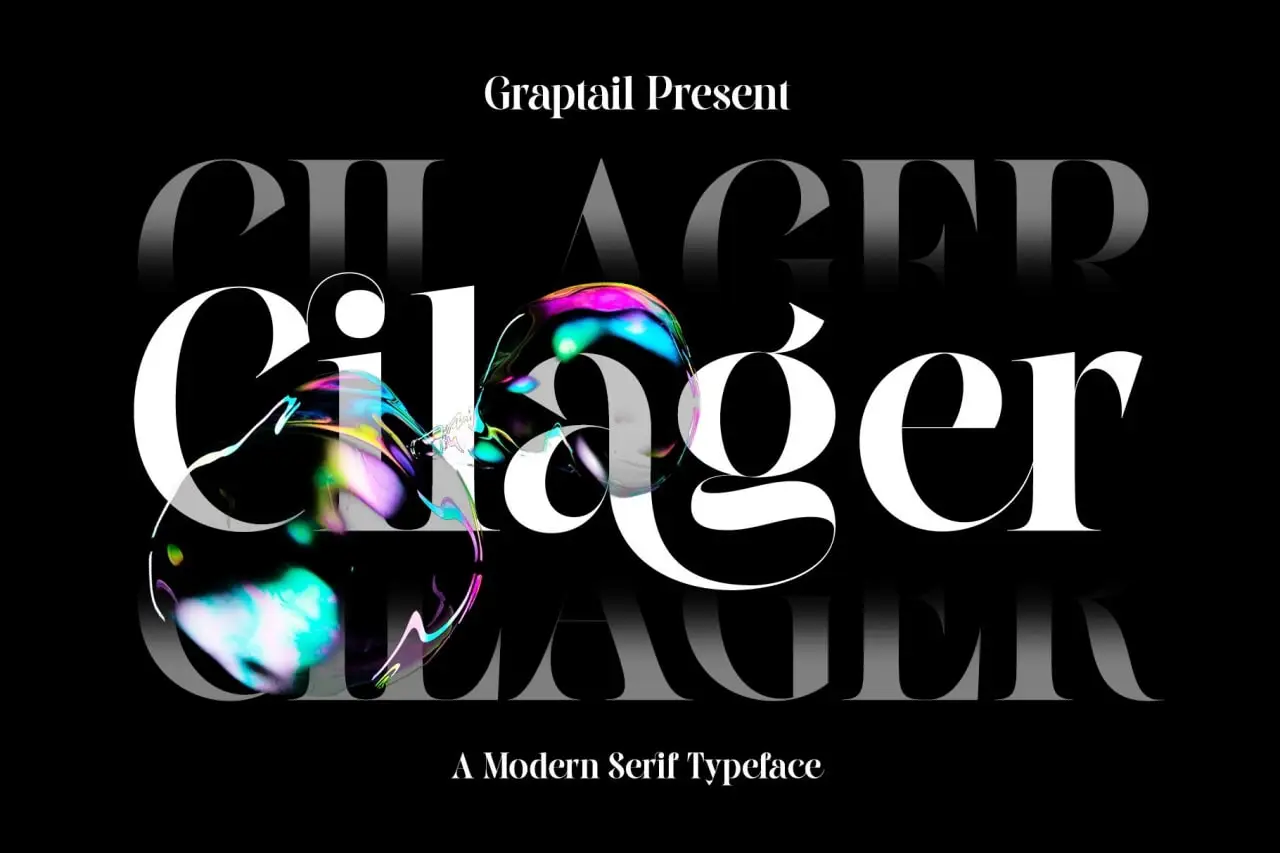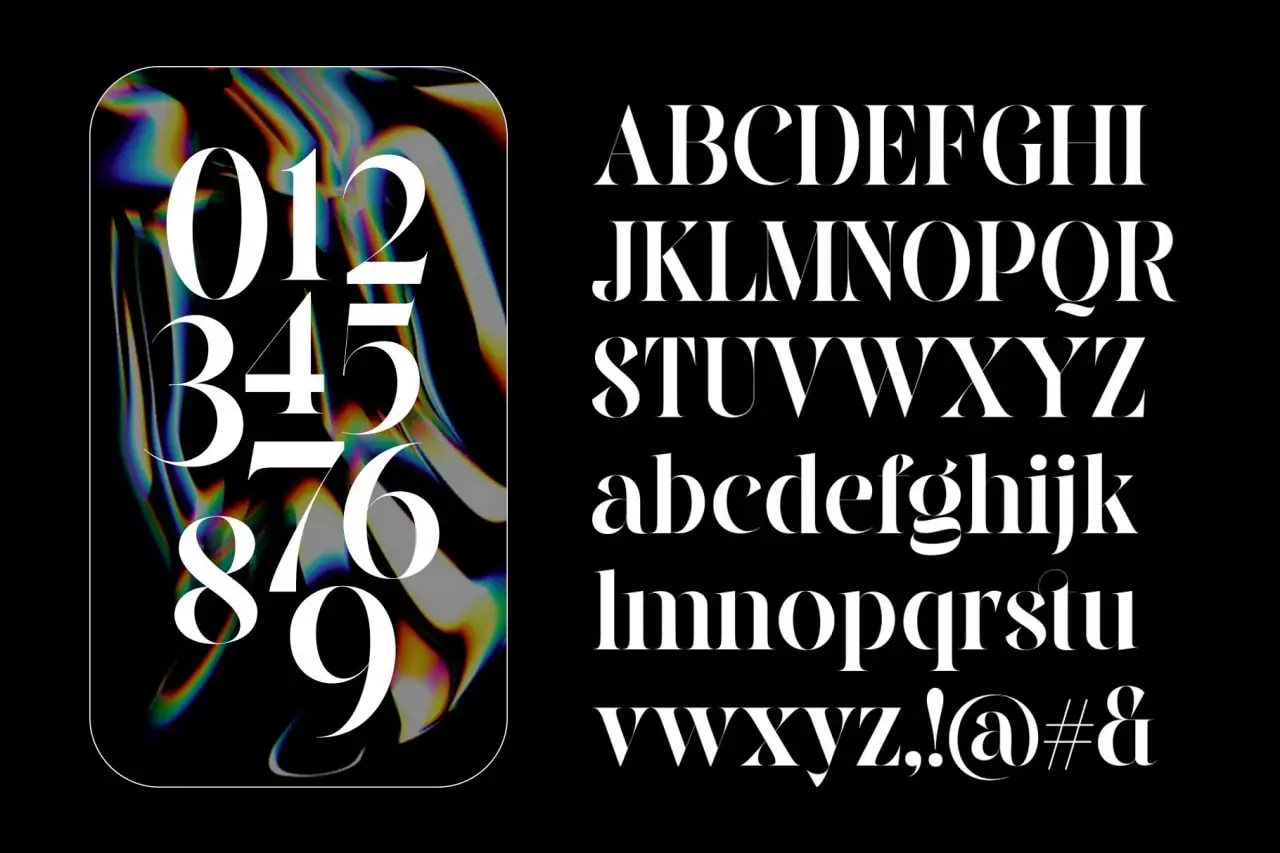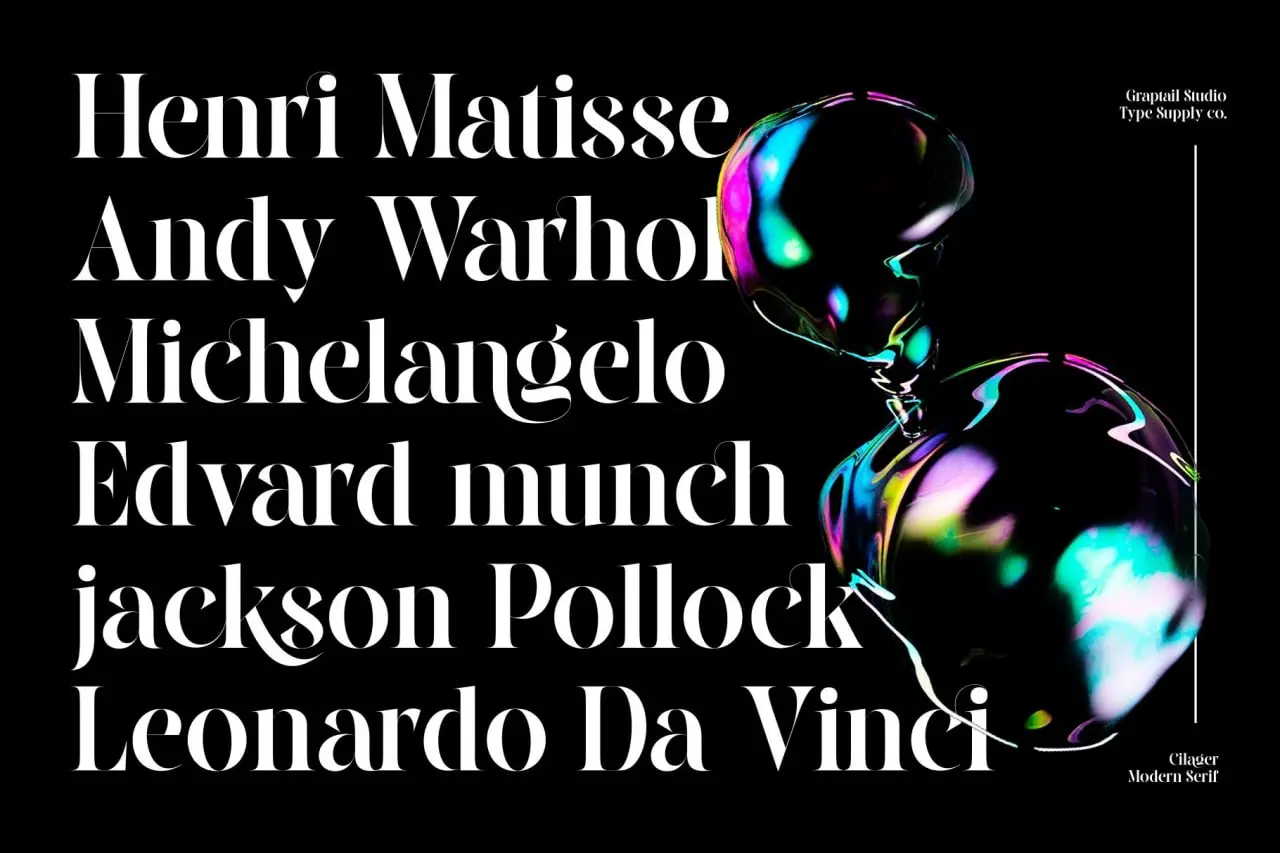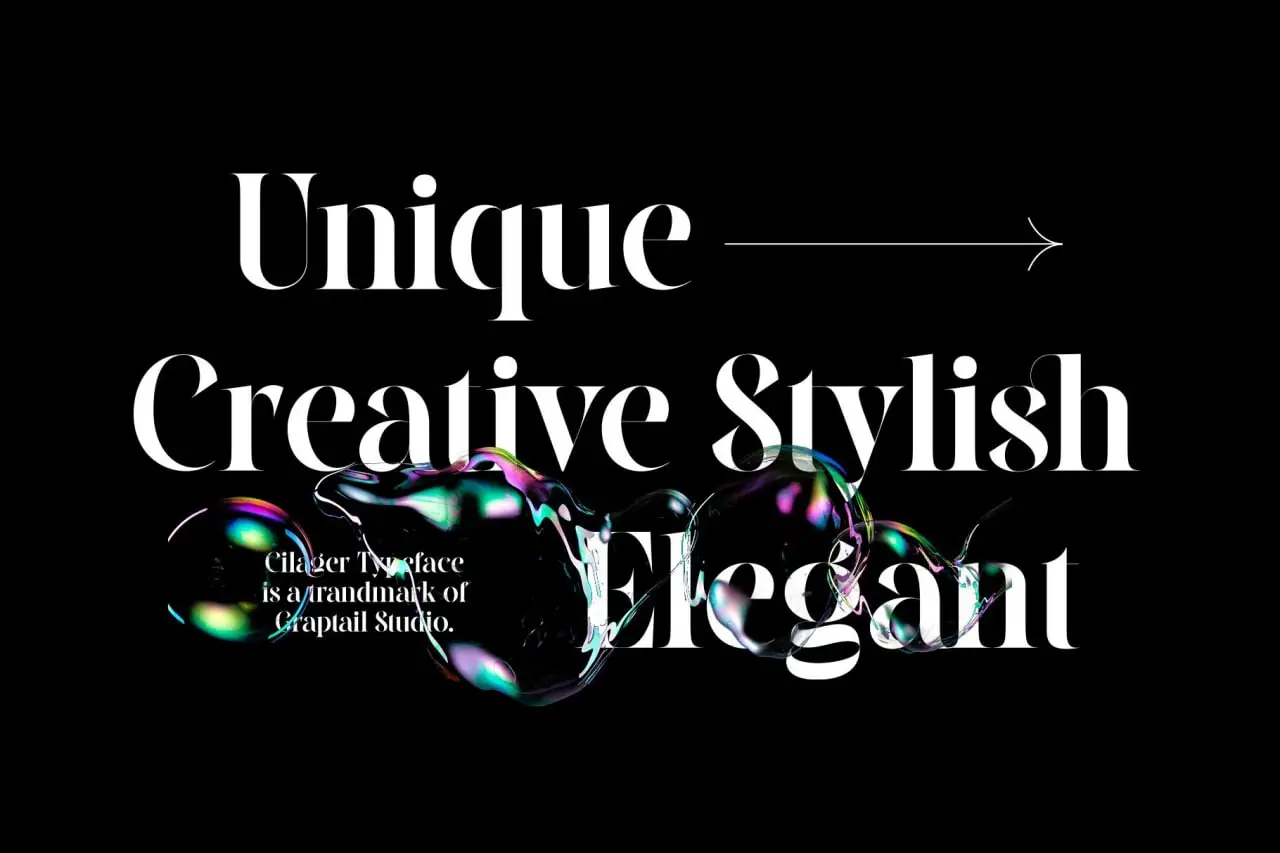
Cilager-Modern Serif Typeface
The Cilager Modern Serif Typeface is a sophisticated font designed to bring elegance and clarity to your projects. With its unique blend of classic serif features and contemporary aesthetics, this typeface is perfect for a variety of applications.
• Stylish serif design for a modern look
• Multiple weights available for versatility
• Easy to read at various sizes
• Ideal for both print and digital use
• Perfect for branding, logos, and editorial design
• Great for web typography and user interfaces
• Use in print materials such as brochures, business cards, and posters